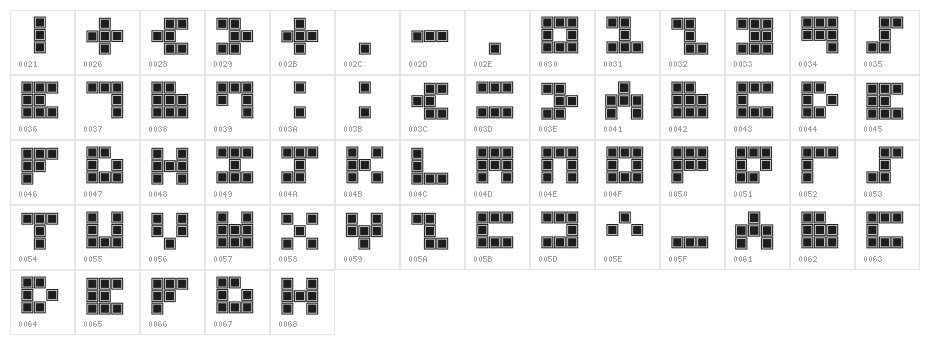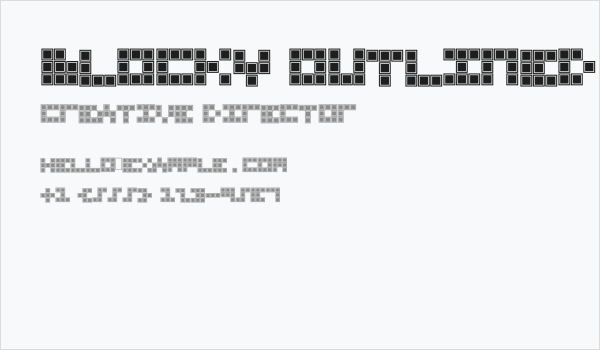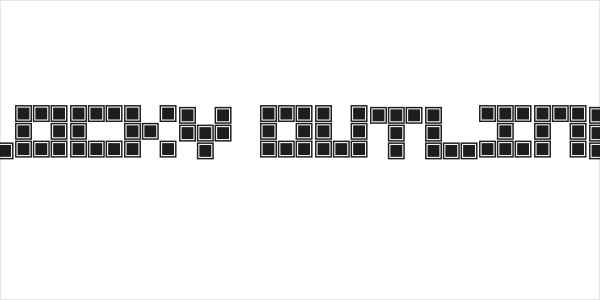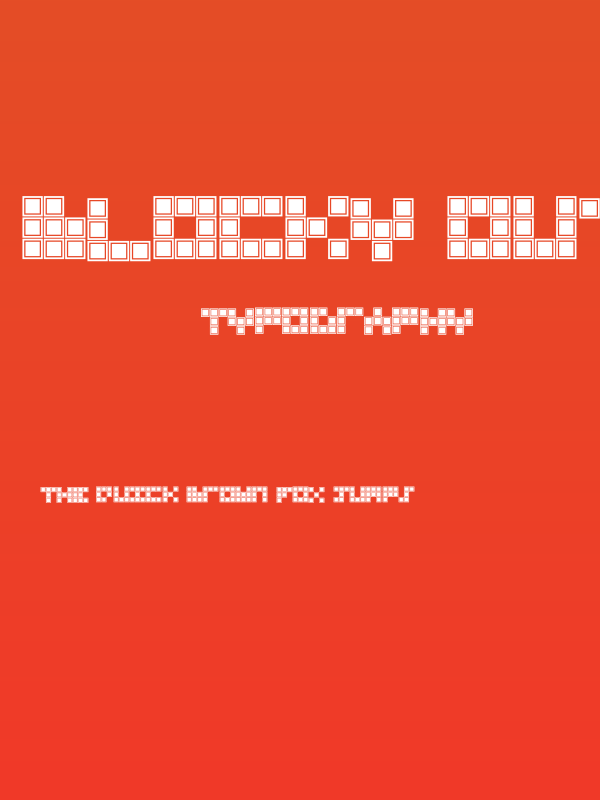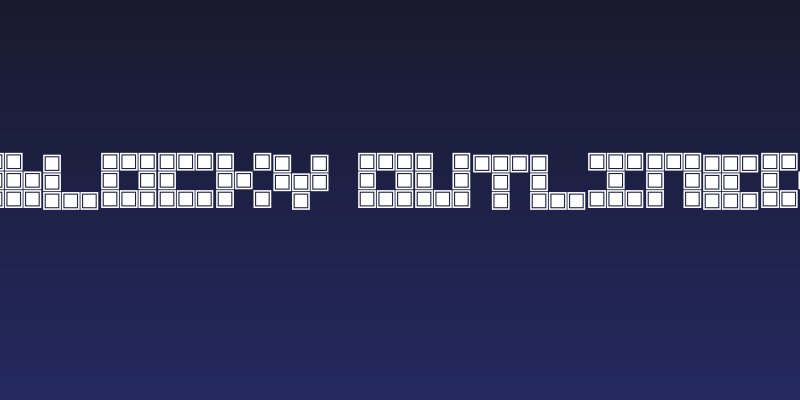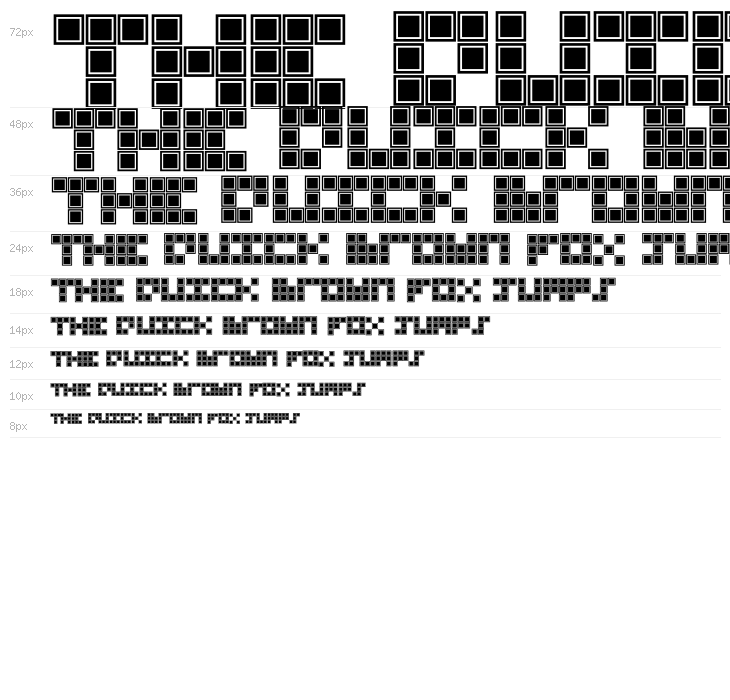
Blocky Outlined Font
Blocky Outlined Description
This font features a unique blocky, outlined design where each character is composed of a series of square outlines. The letters and numbers are constructed with a grid-like appearance, giving them a digital or pixelated aesthetic. The style is bold and eye-catching, making it suitable for modern and tech-oriented designs. The characters are evenly spaced, maintaining a consistent structure throughout the set. The outlined nature of the font adds a layer of complexity and depth, making it stand out in any design project.